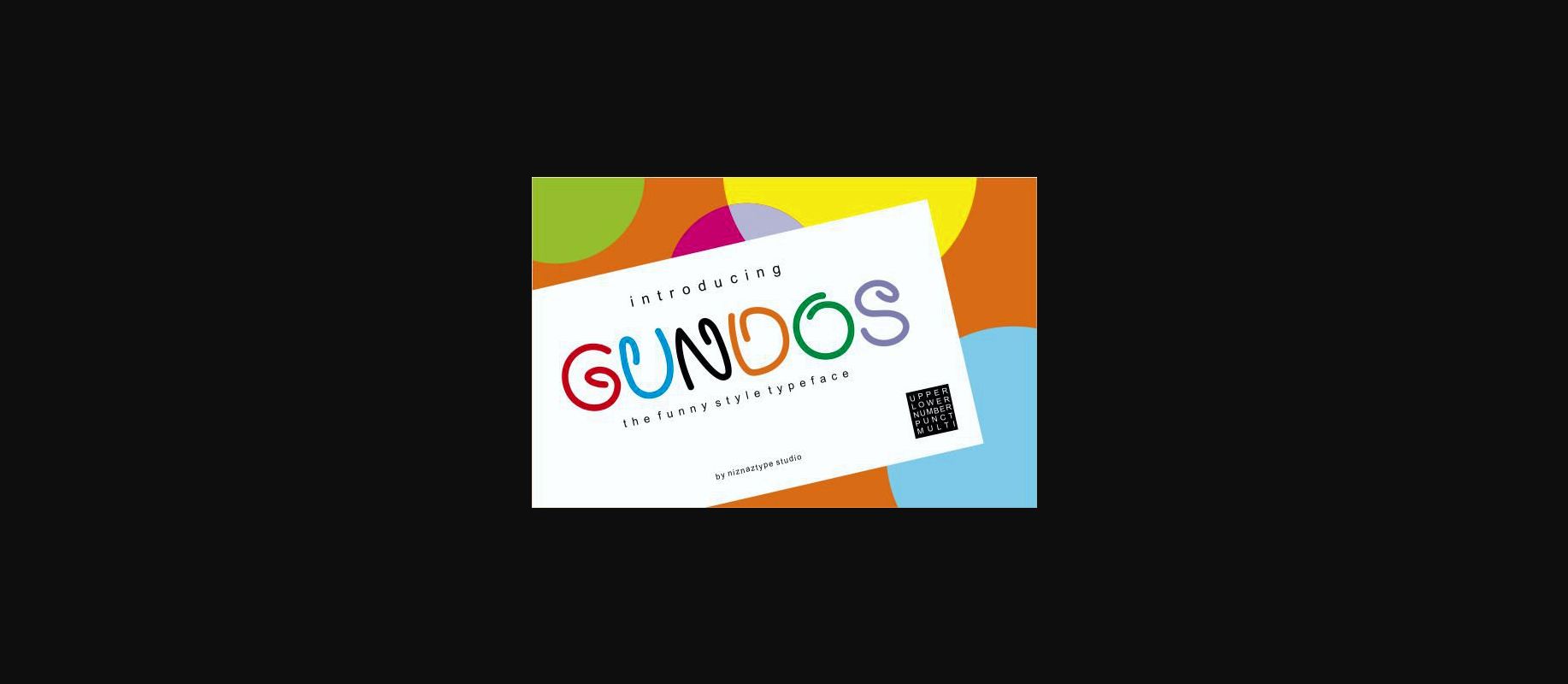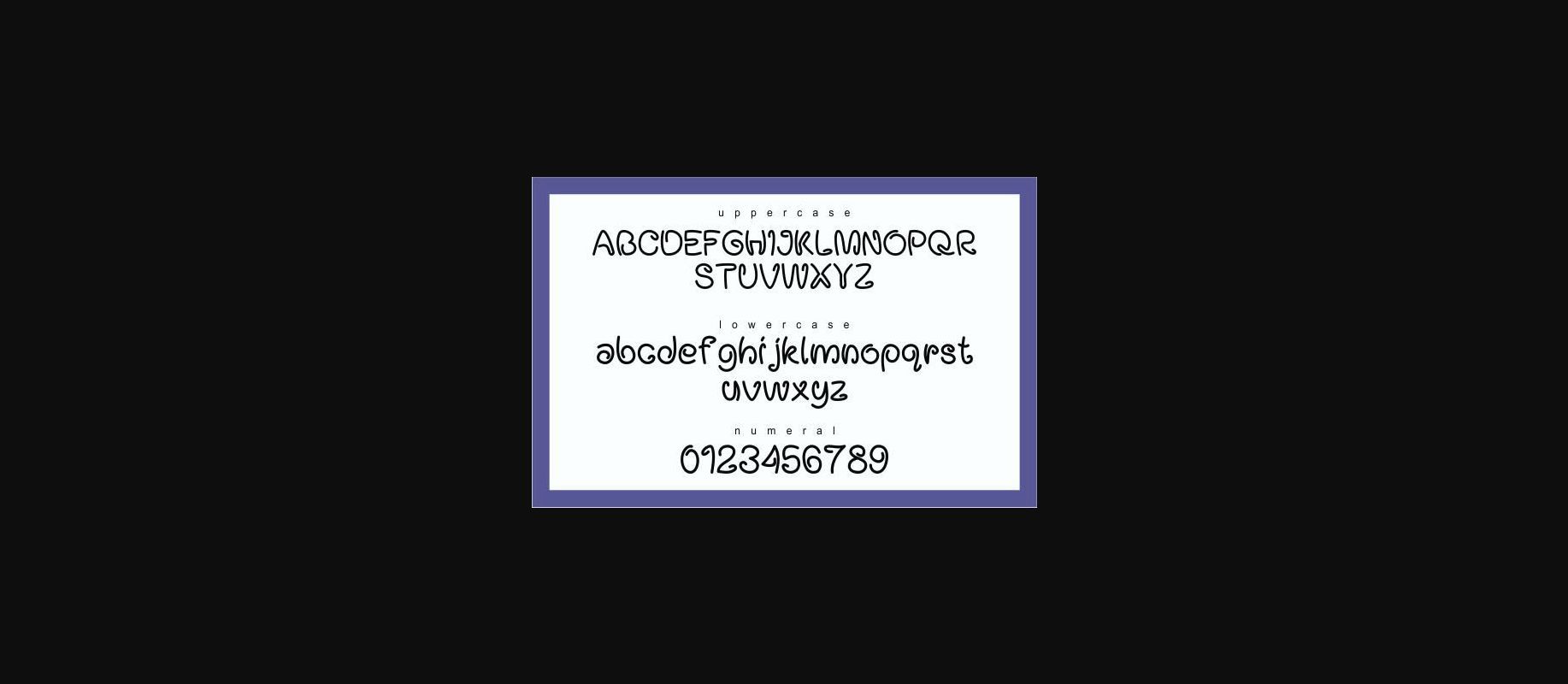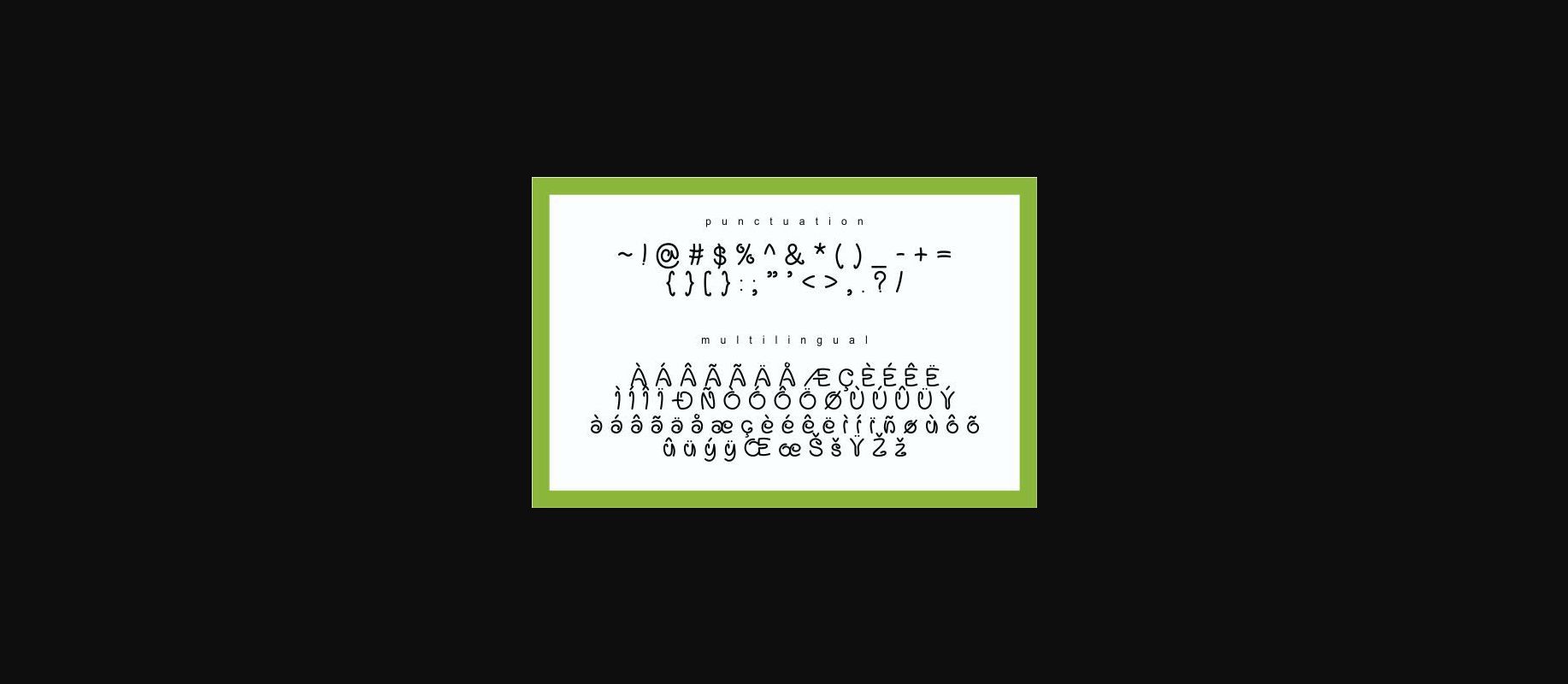
Gundos Font
About Gundos Font
The new Gundos design is a decorative font suitable for kids projects, comics, magazine covers, posters and more.
This playful font is a great tool for your future projects.